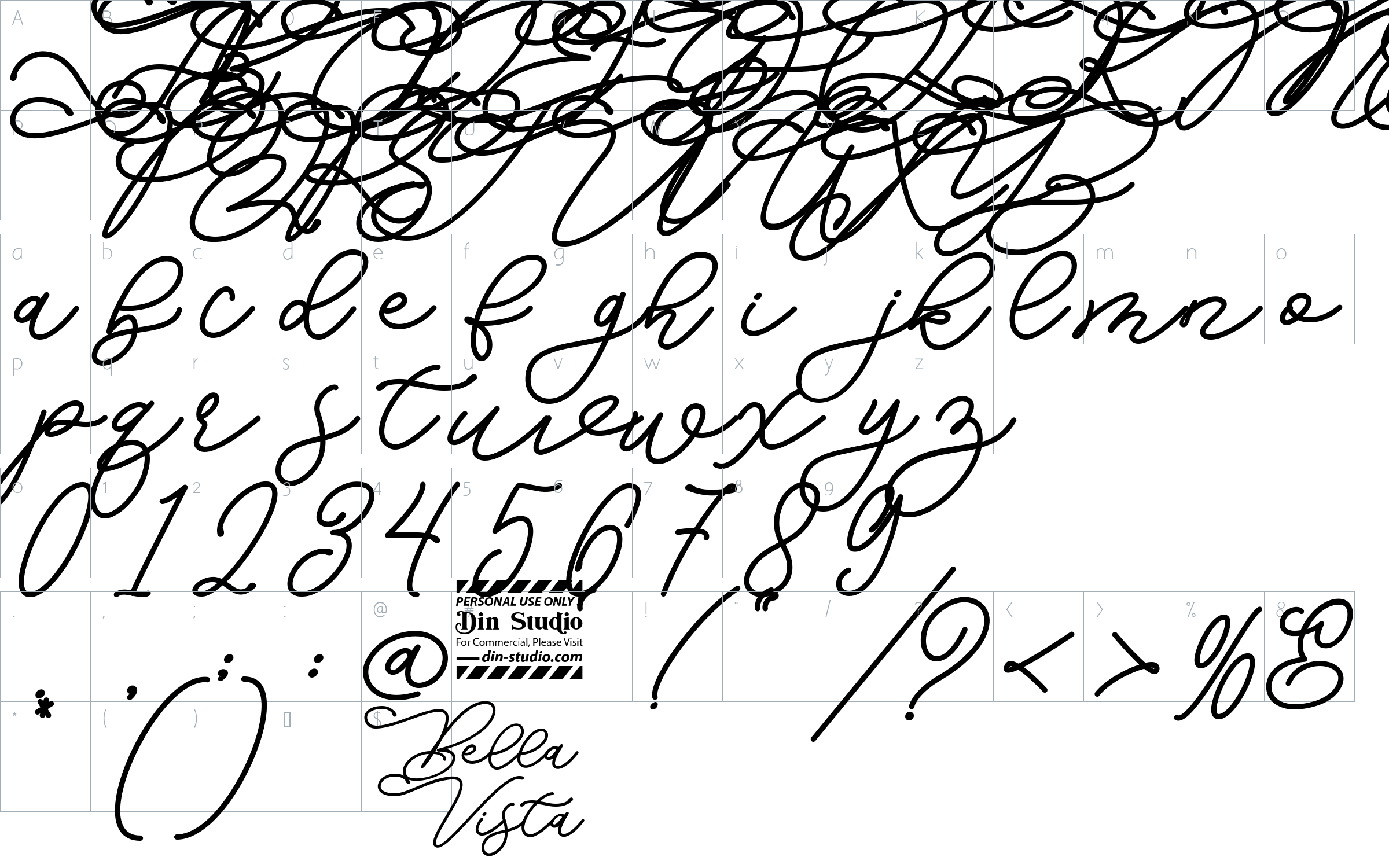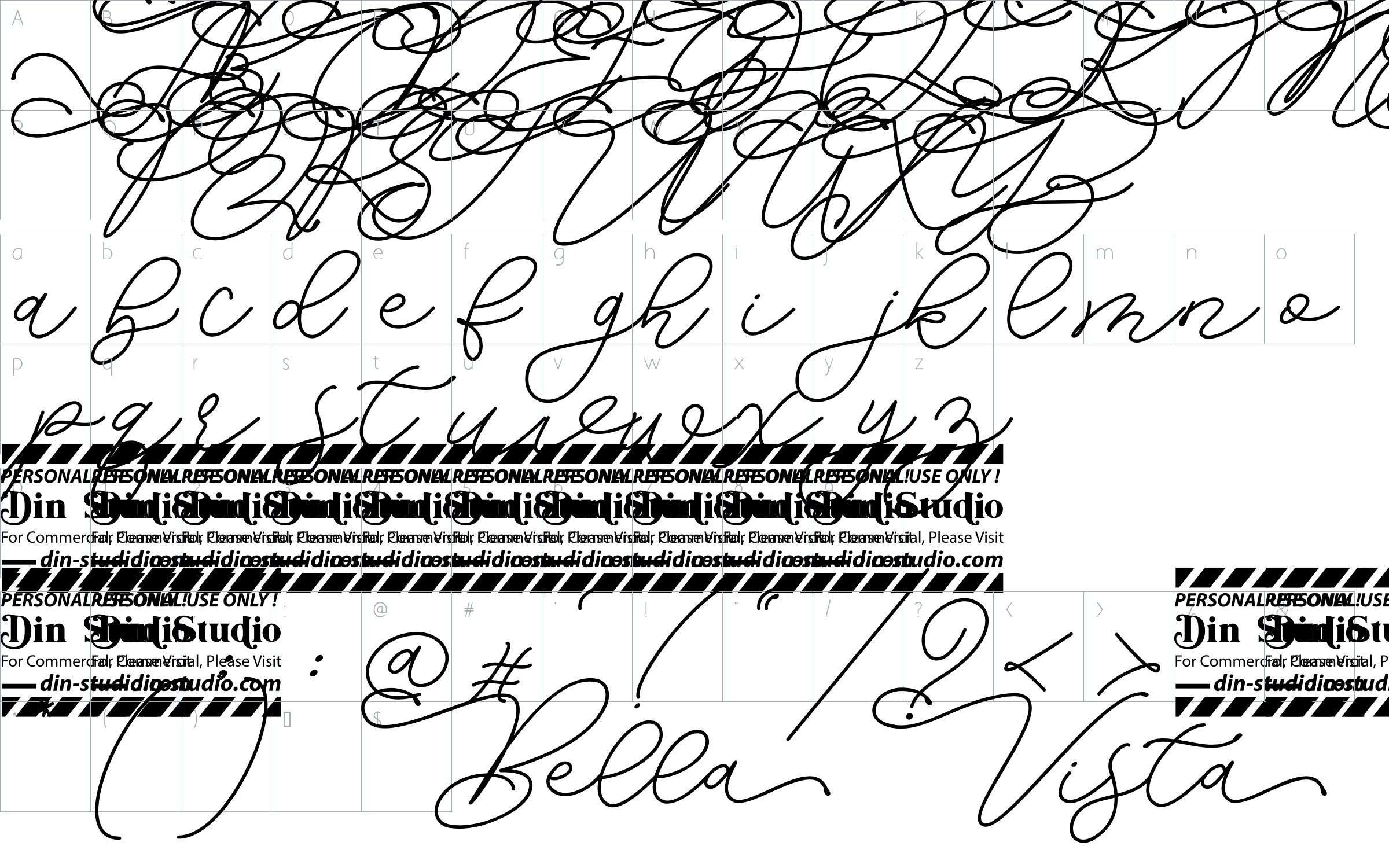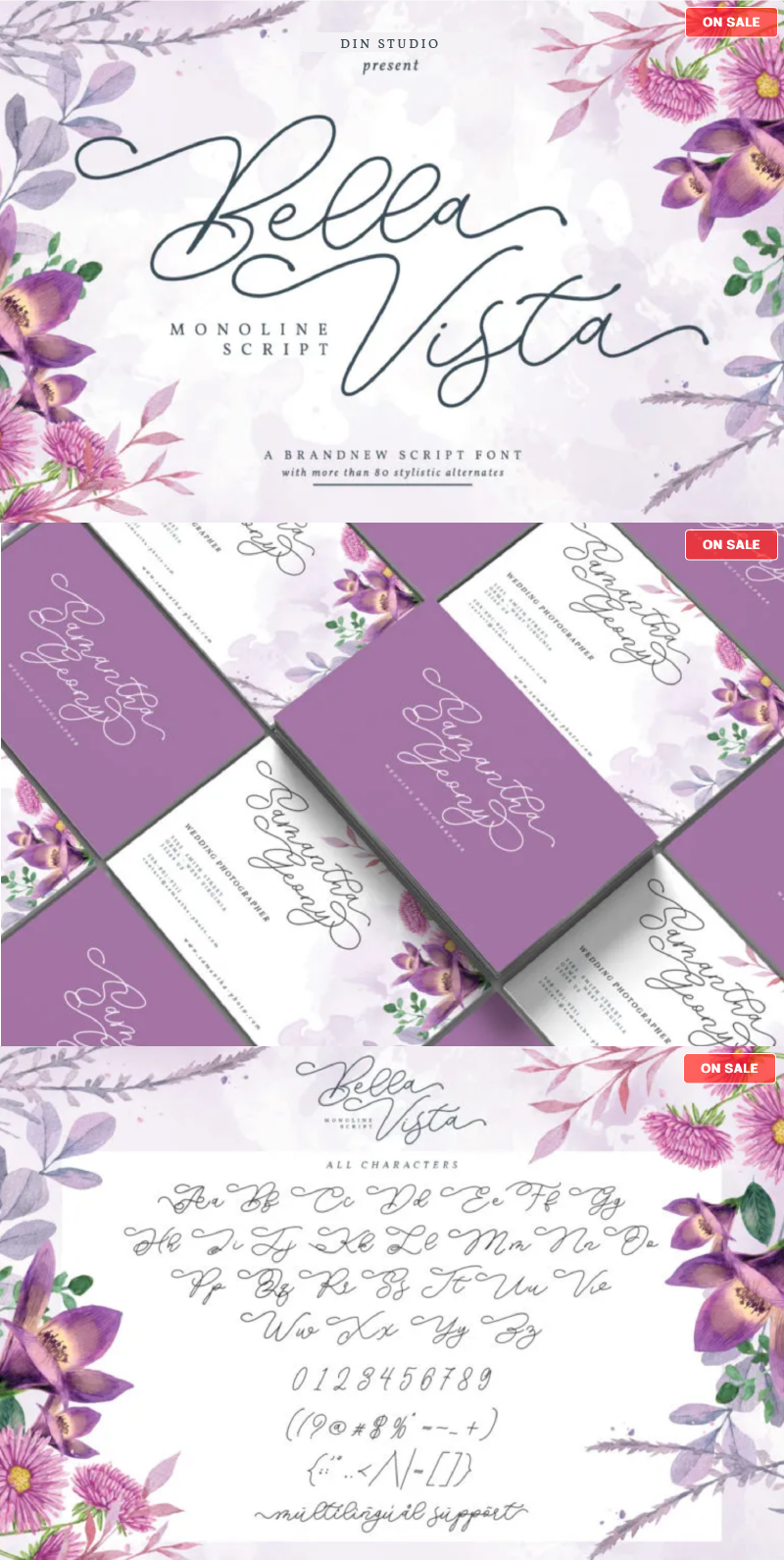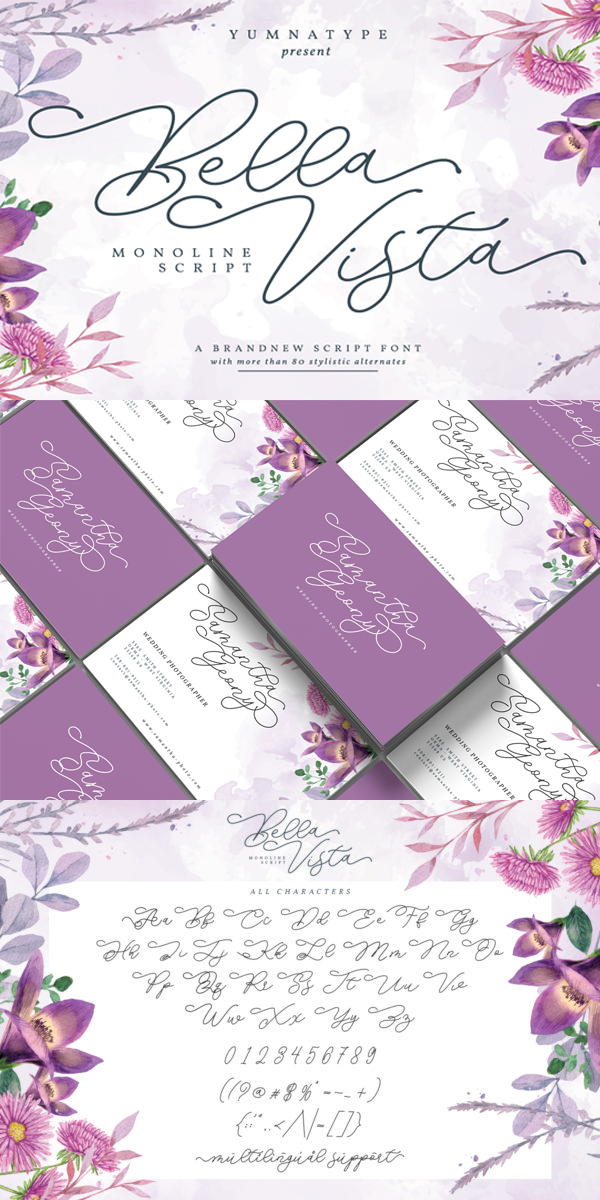
Bella Vista Font
About Bella Vista
Say Hello to Bella Vista – Monoline Script. Made from monoline style. it will make your design project more beautiful. The font is suitable for any design like branding, fashion, print template, quotes, wedding and etc. The font includes full set of hand lettered uppercase and lowercase letters, numerals, punctuation, and ligatures.
Features :
-121 Beautiful Alternates
-6 Beautiful Ligatures
-Numerals and Punctuation (OpenType Standard)
-Full Support